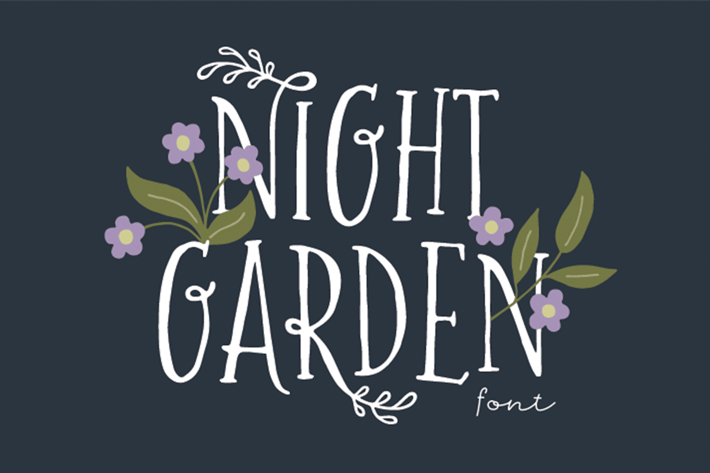
Night Garden Font
Night Garden is a whimsical, all-caps font that includes several nature-inspired ligatures and alternate characters. Ligatures will appear automatically in programs that support OpenType fonts and have the feature turned on.